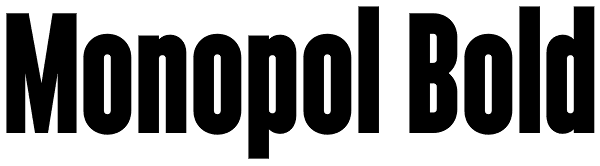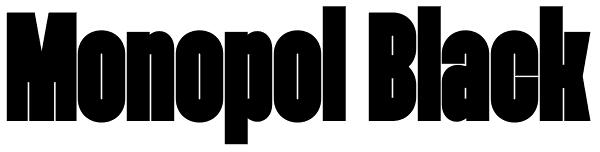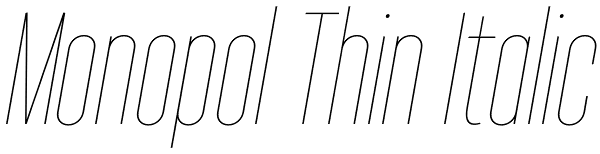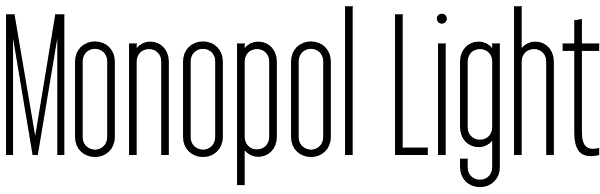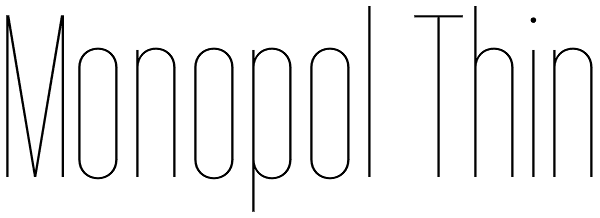
Monopol
The type family consists of six well-distinguished weights, from hair-thin all the way to the one black as the deepest night. In line with the current trend, it touches all boundaries, it stretches beyond technical possibilities and in extremes, it...